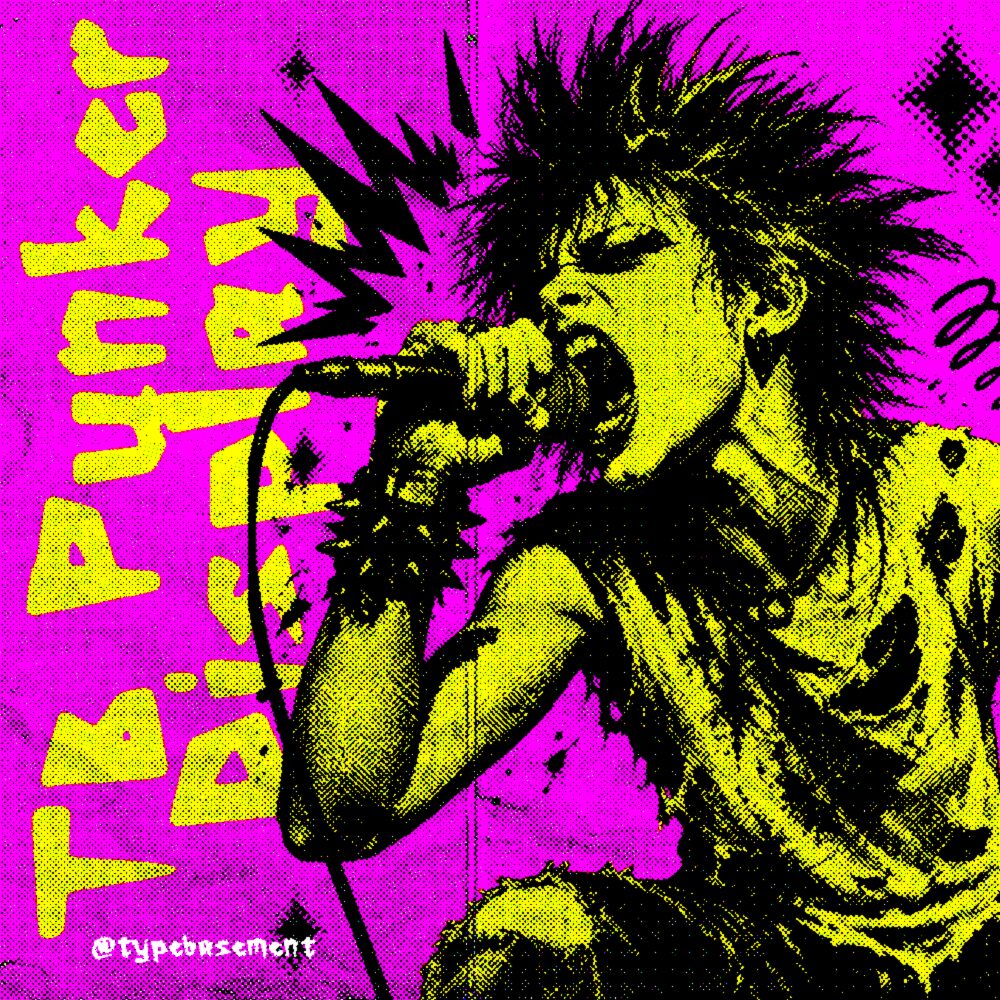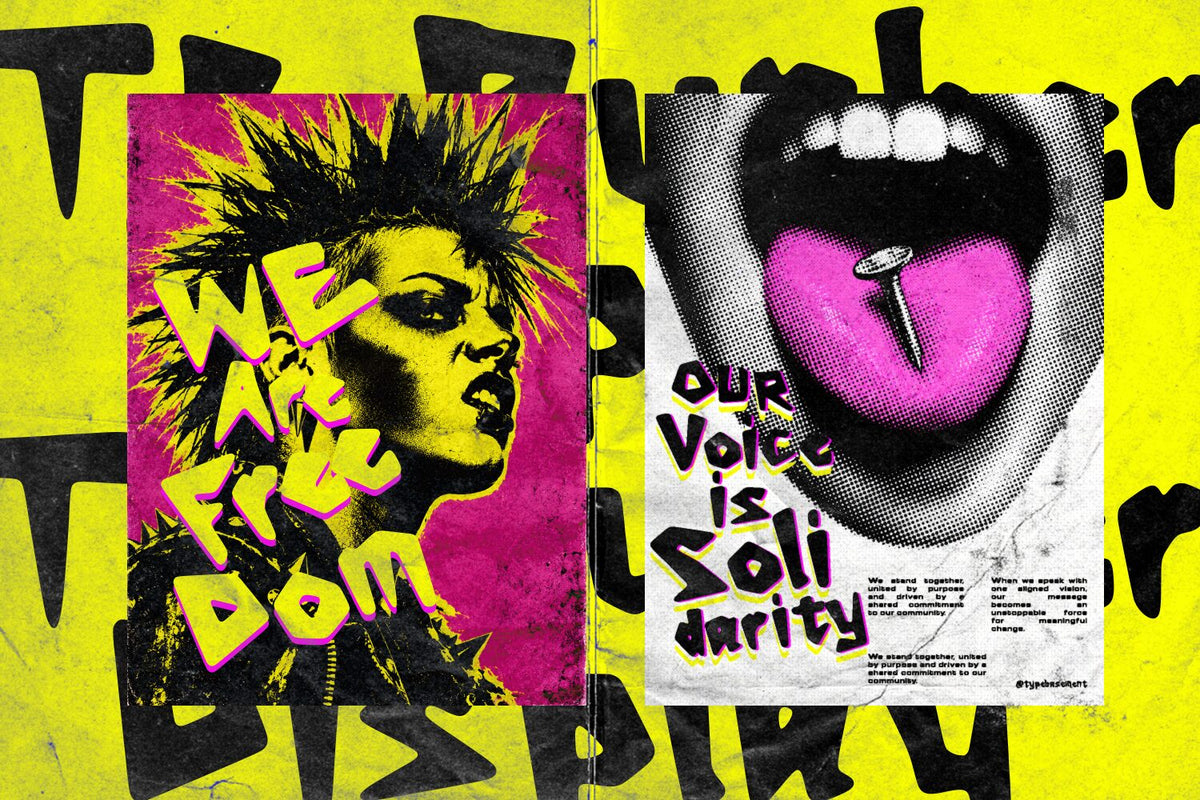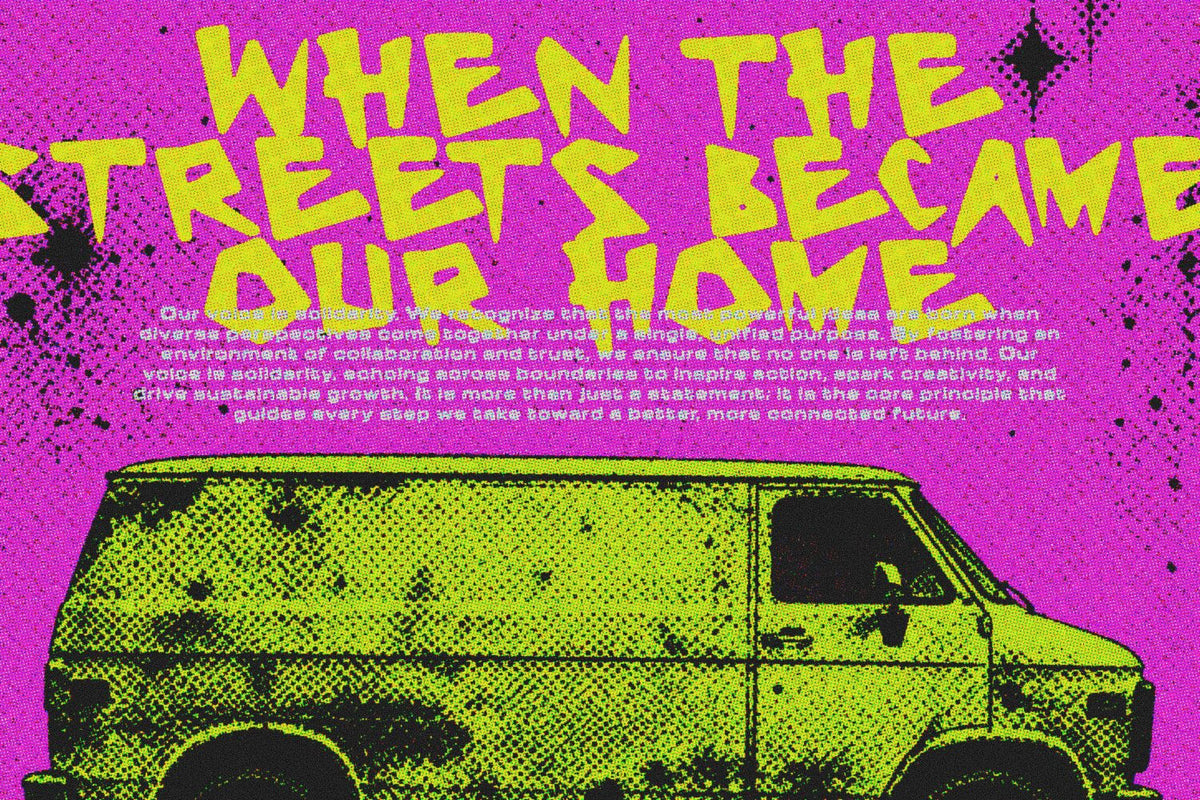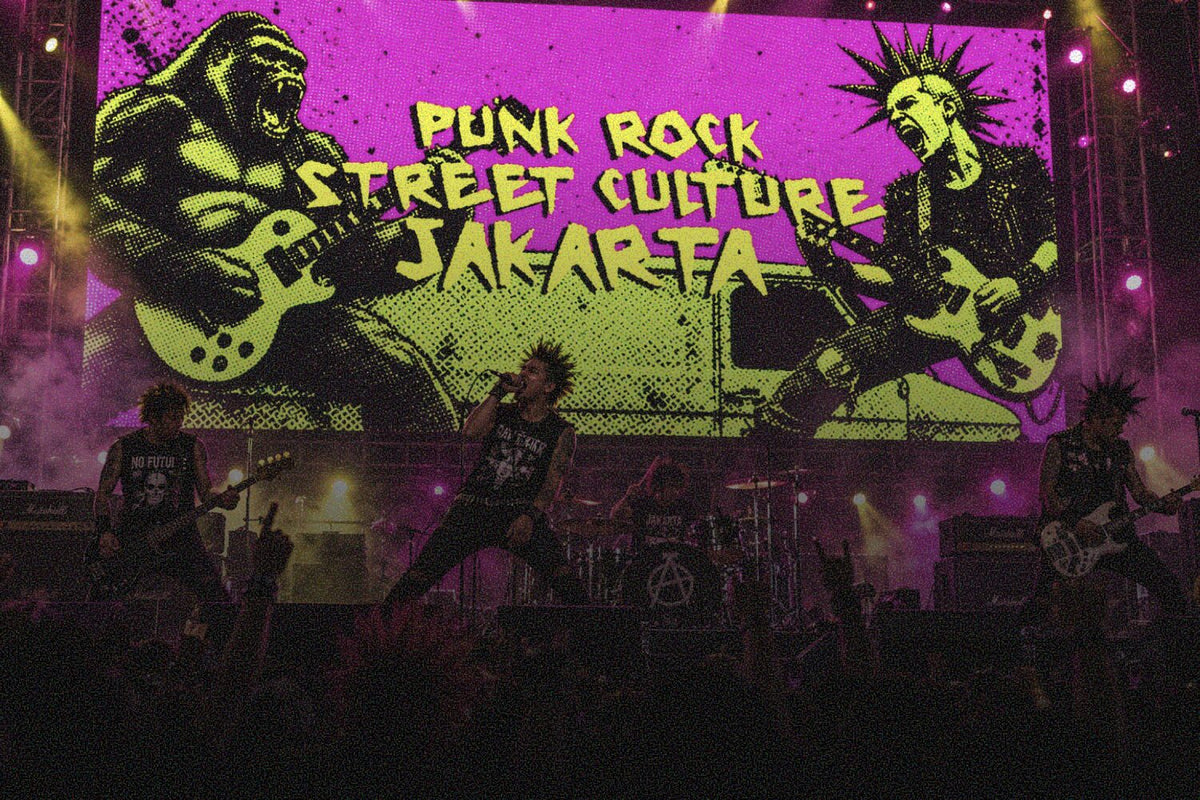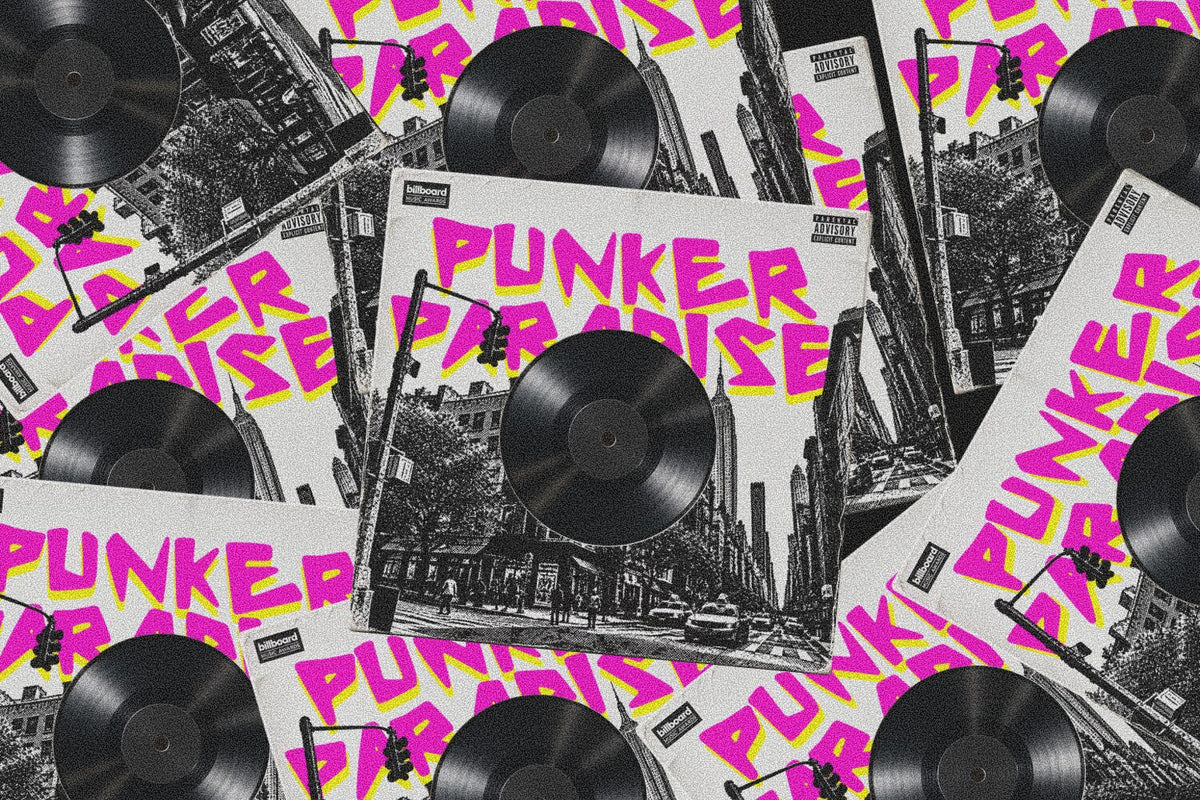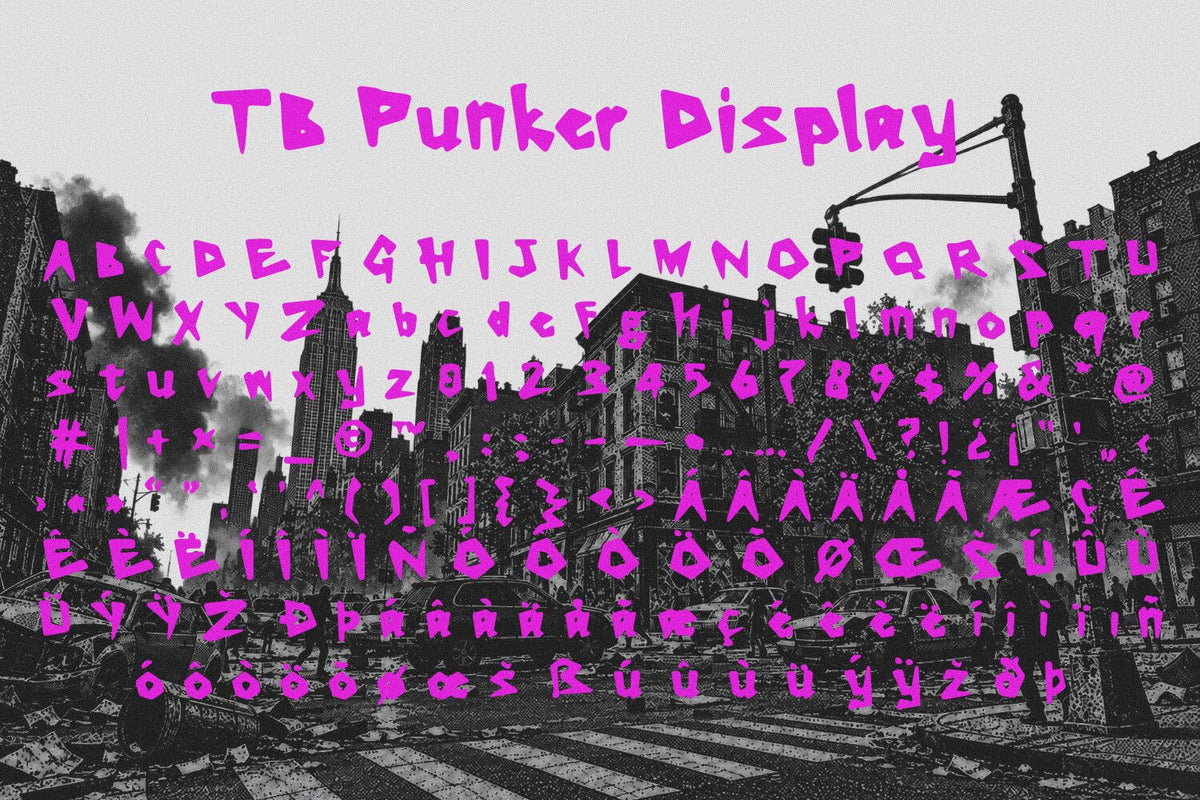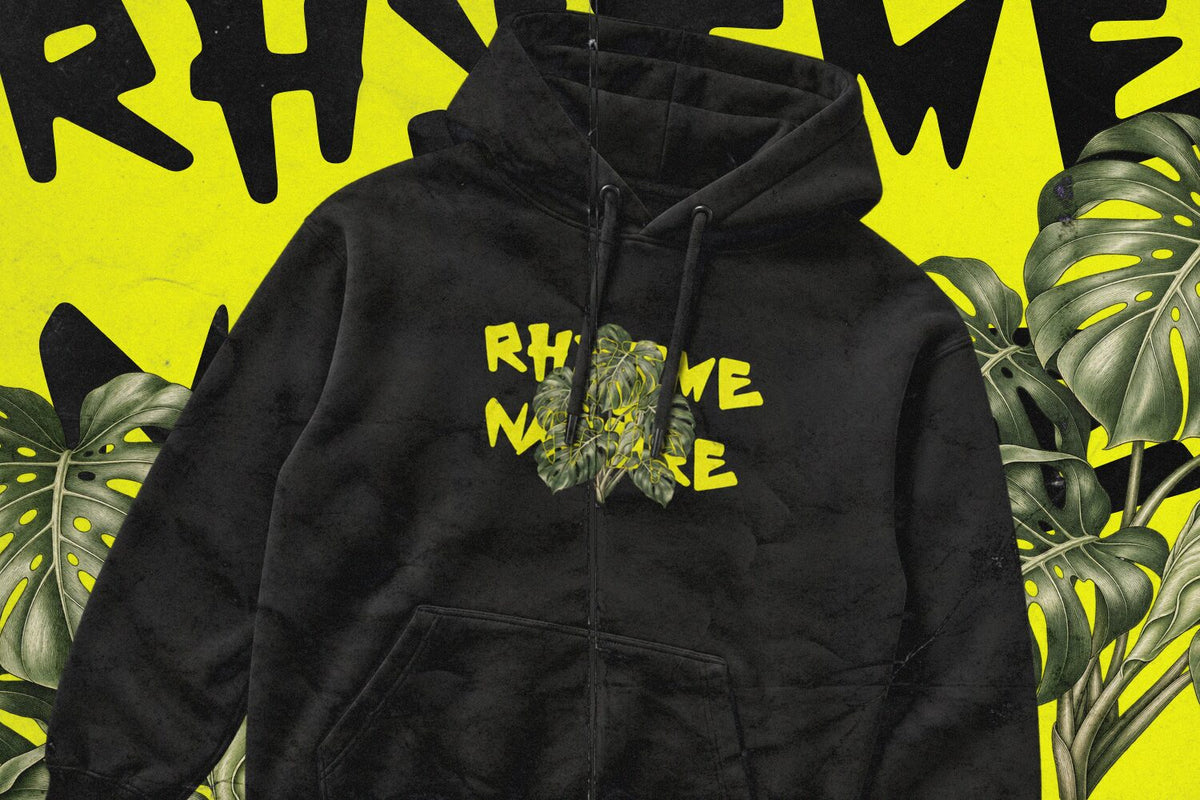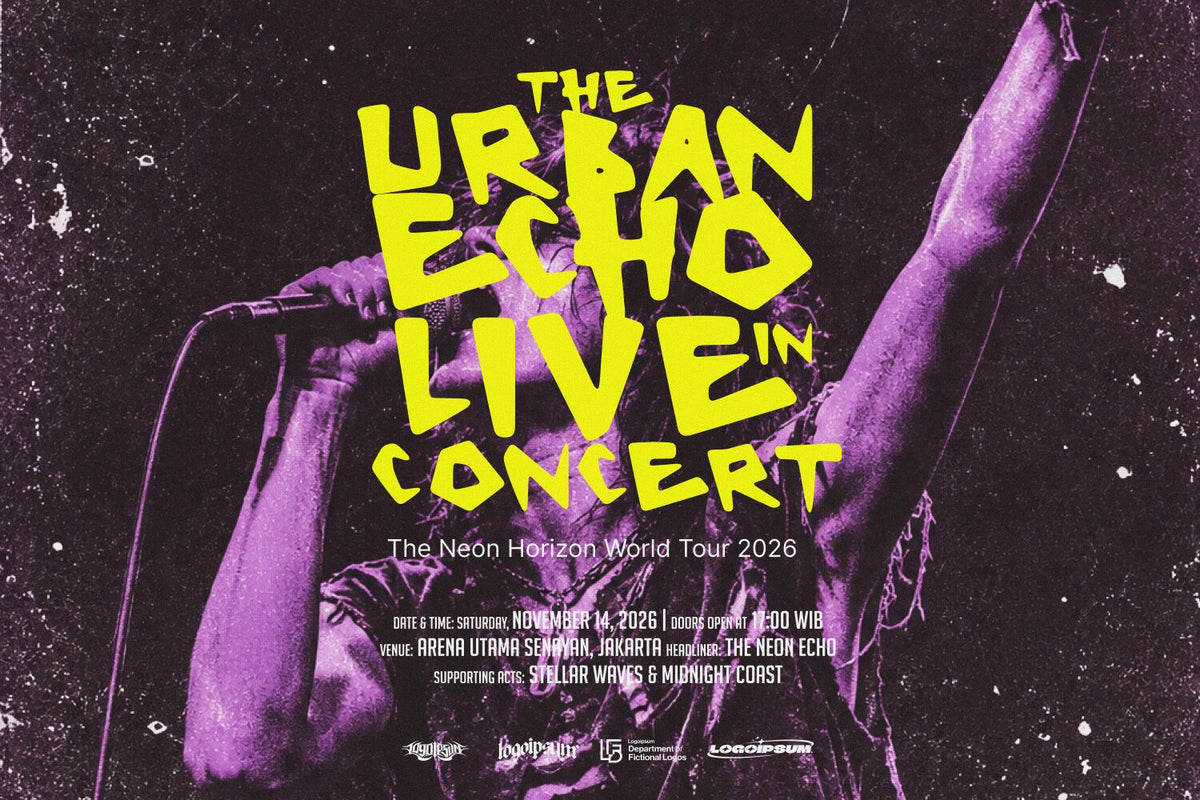
TB Punker Punk Display Font
Type Basement
TB Punker is a raw display font inspired by punk culture, DIY graphics, underground flyers, and rebellious handmade lettering. Its irregular shapes and rough personality bring an immediate sense of energy to typography without losing its impact at large display sizes.
Built for artwork that refuses to stay quiet, TB Punker works naturally across gig posters, album covers, band graphics, streetwear, merchandise, zines, editorial layouts, branding, social media, and alternative culture projects.
The typeface includes uppercase and lowercase characters, punctuation, and multilingual support, giving designers enough flexibility to push the punk aesthetic across a wide range of creative applications.
One style. No unnecessary extras. Just a loud display typeface made to take over the composition.
• Uppercase characters
• Lowercase characters
• Numbers & punctuation
• Multilingual support
TB Punker is a raw display font featuring irregular, rough-edged letterforms inspired by punk and DIY graphics. It includes one regular style with uppercase and lowercase characters, numbers, punctuation, and multilingual support, provided in OTF, TTF, and WOFF formats.